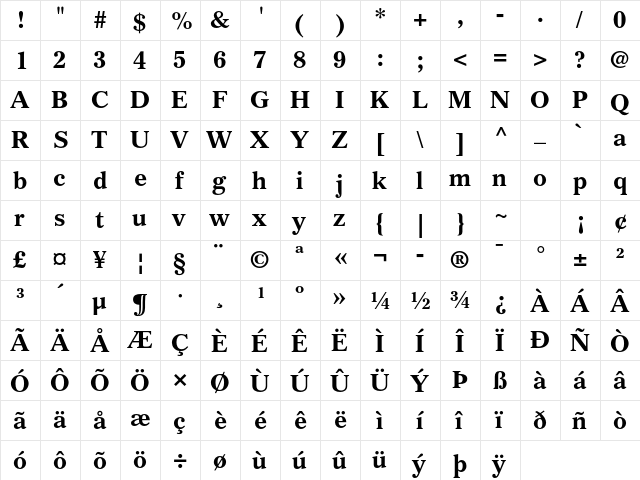
Gazette LT Std Bold
Design Context for Gazette LT Std Typeface
Gazette LT Std is a composed and adaptable typeface that performs quietly and consistently across a wide range of design contexts. The heavy weight commands attention and anchors typographic hierarchies.
Pro Tip: Use Gazette LT Std in both headline and body roles to test its range before committing to a single application.